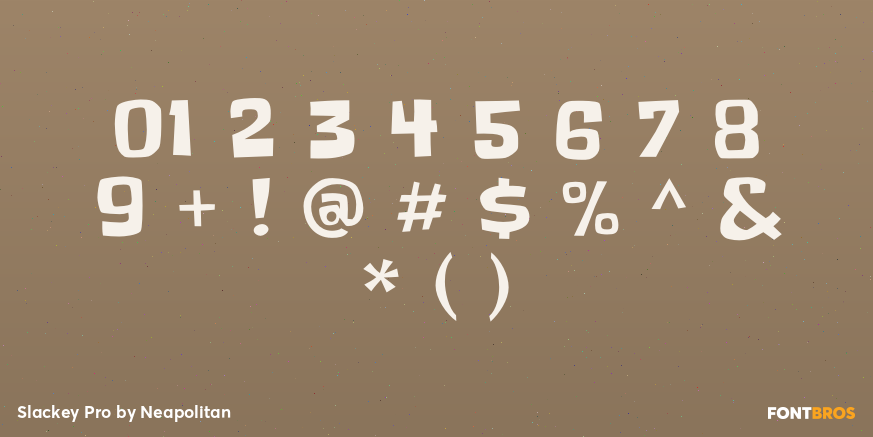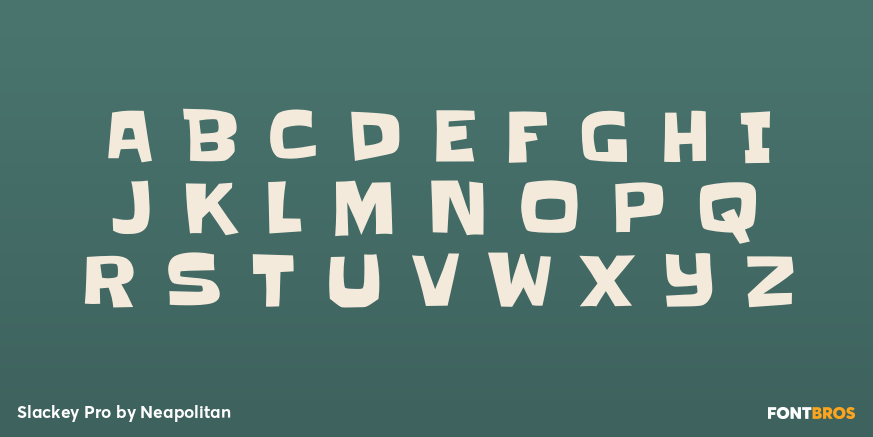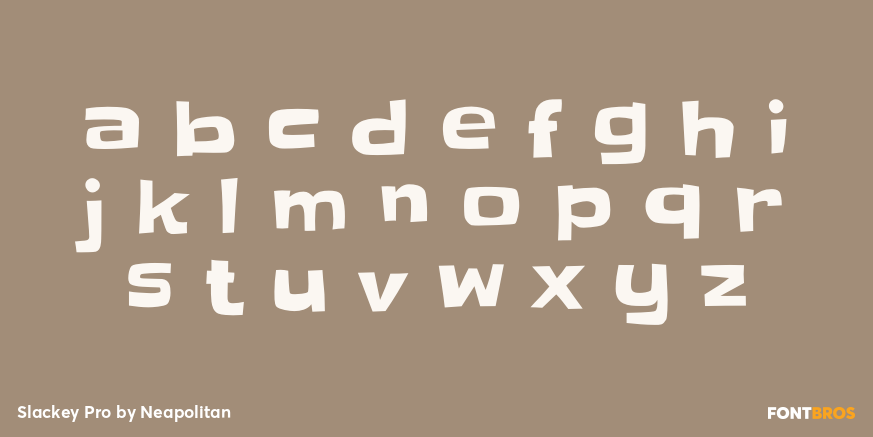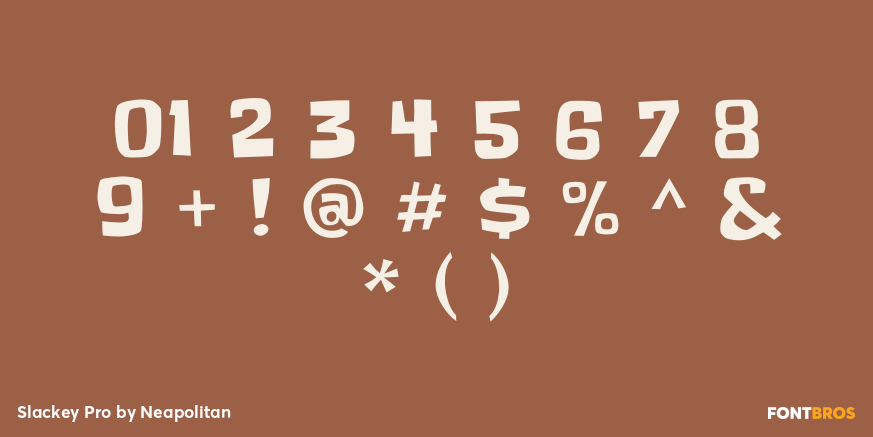
Slackey Pro
Font Family by Neapolitan
Don't let the name fool you! Slackey really pulls its weight when you need a fun, chunky display font. So next time you have a weighty headlining chore to do, let Slackey do all the heavy lifting! Designed with a good work ethic and plenty of manual labor by Squid.
The Pro version has been expanded and enhanced with more characters, dynamic OpenType ligatures and more!